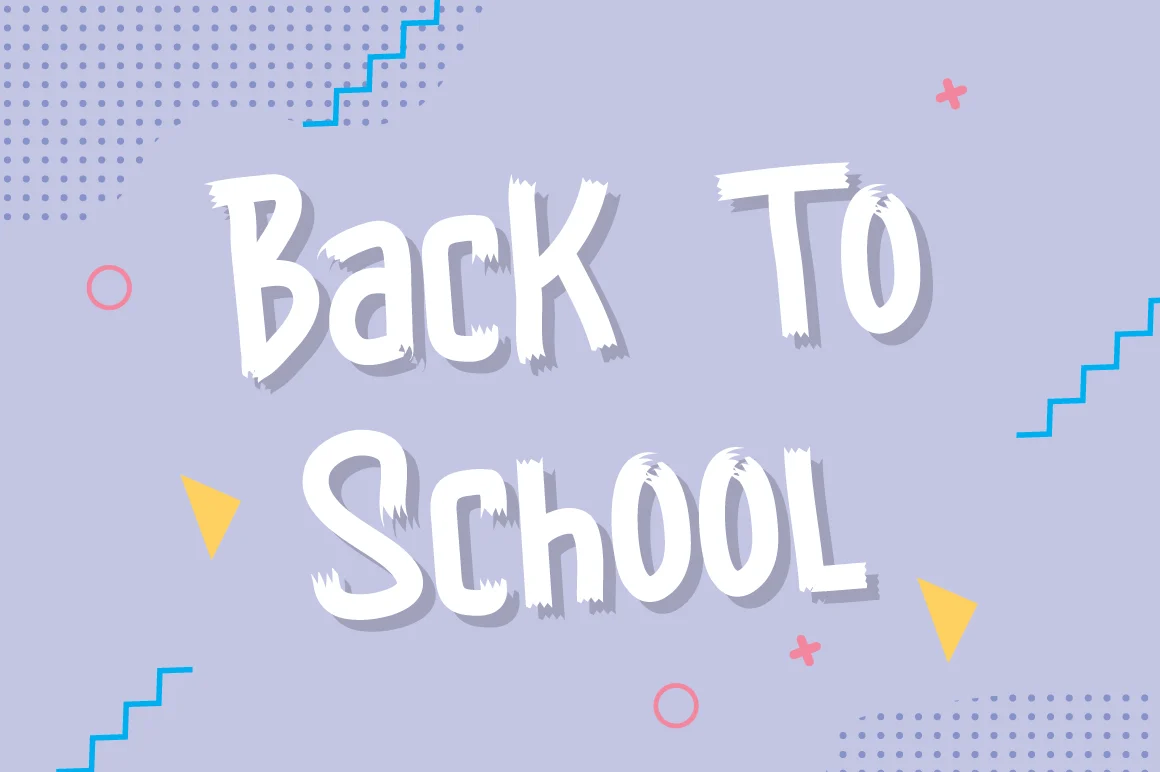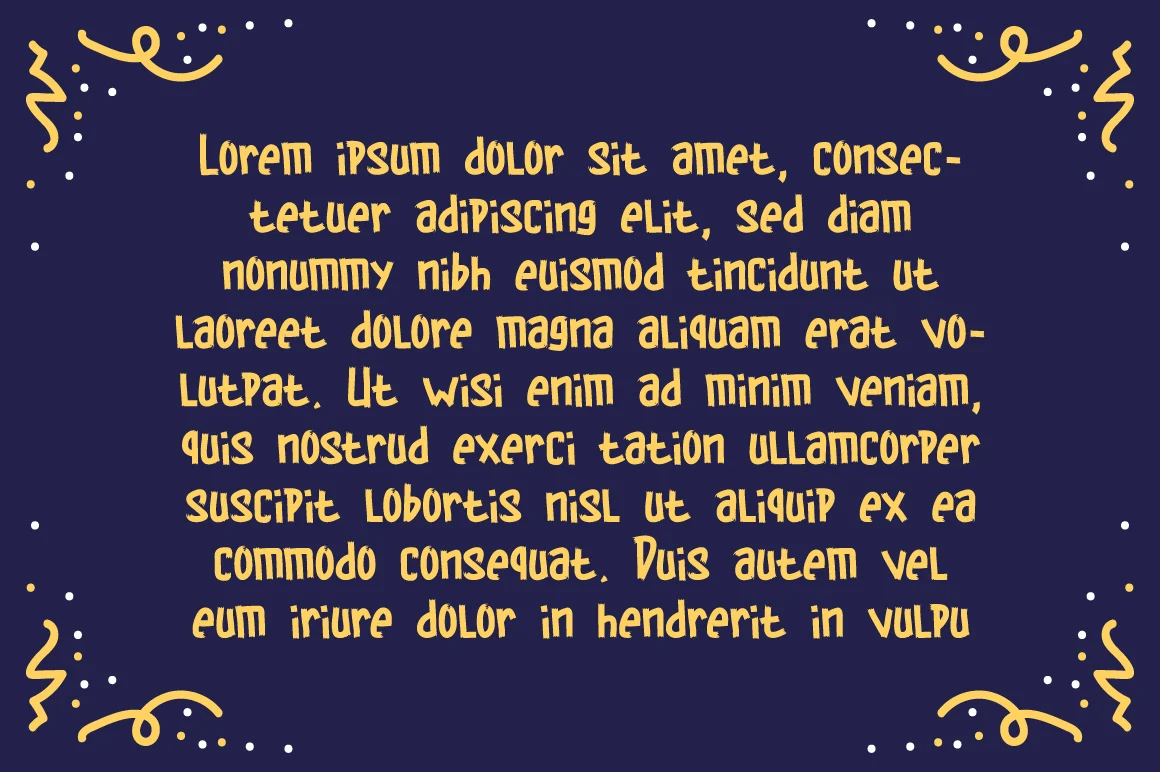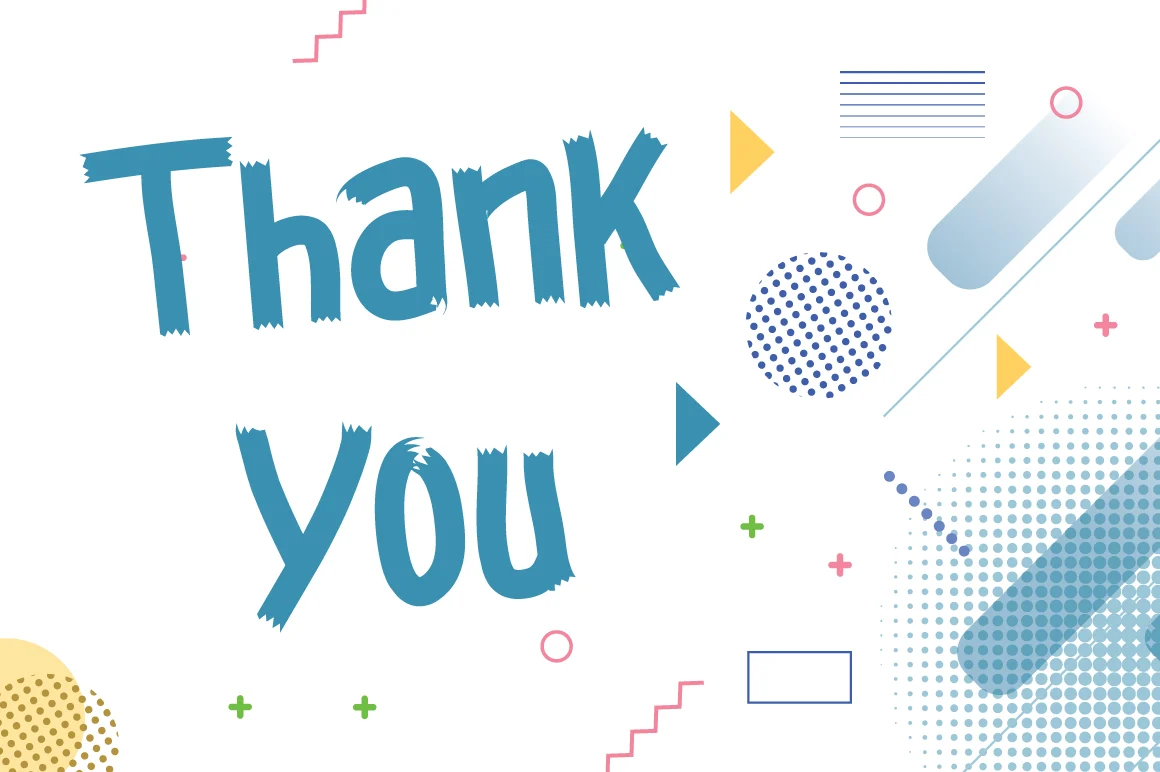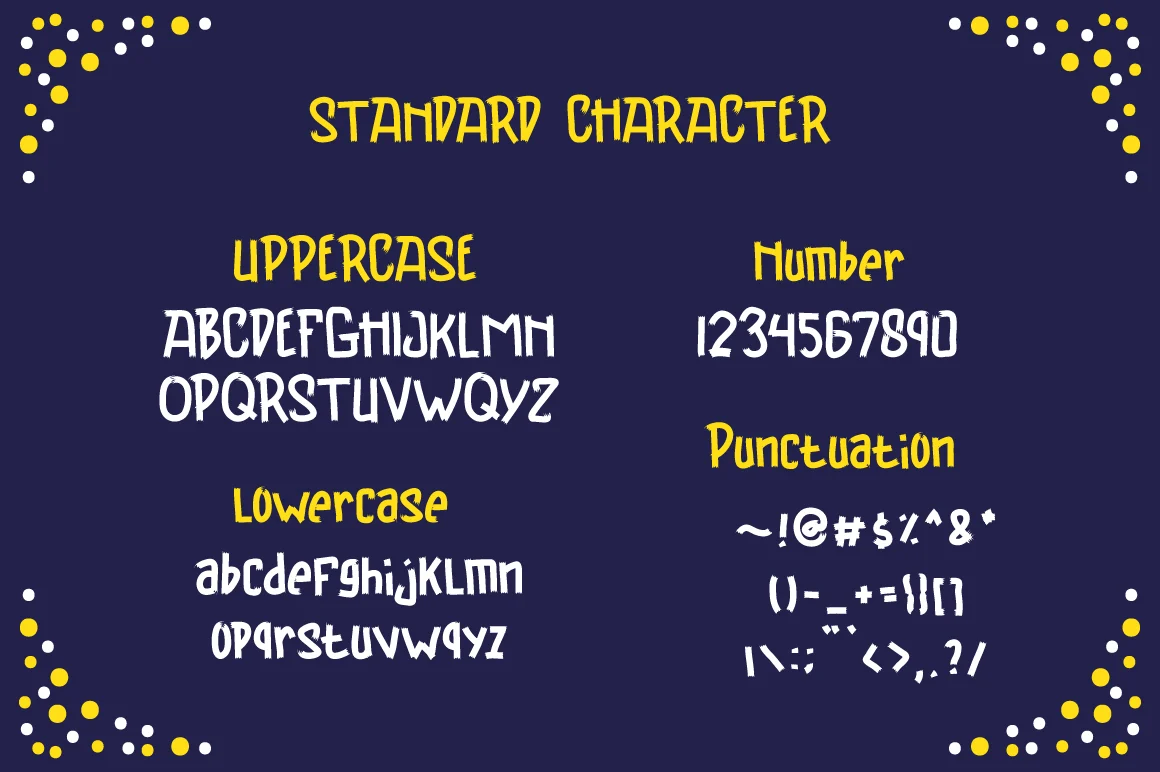
Brayden Typeface – A Playful Unique Font
Brayden Typeface - A Playful Unique Font
So beautiful on invitation like greeting cards, branding materials, business cards, quotes, posters, and more!